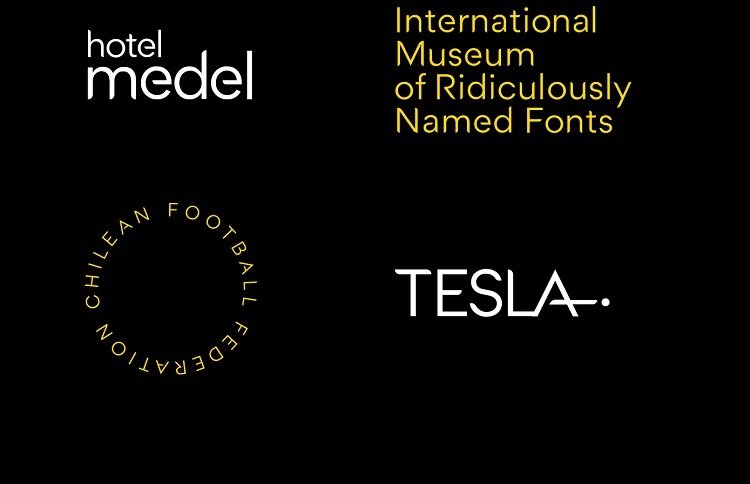
Medel Typeface
Introducing Medel Font! It is designed and shared by Ozan Karakoc. Medel is a modern sans-serif font. Medel is multi-purpose. just like the man whom it’s named after. GaryAlexis Medel Soto. a Chilean footballer who currently playes for Besiktas JK.